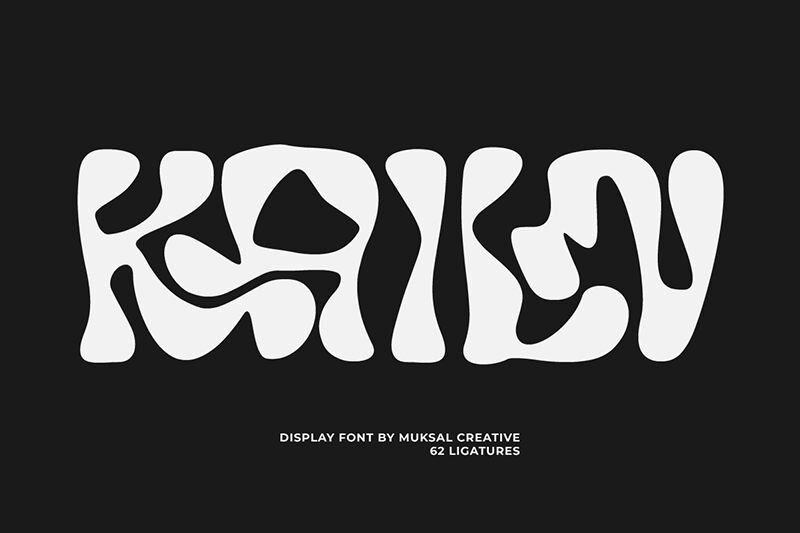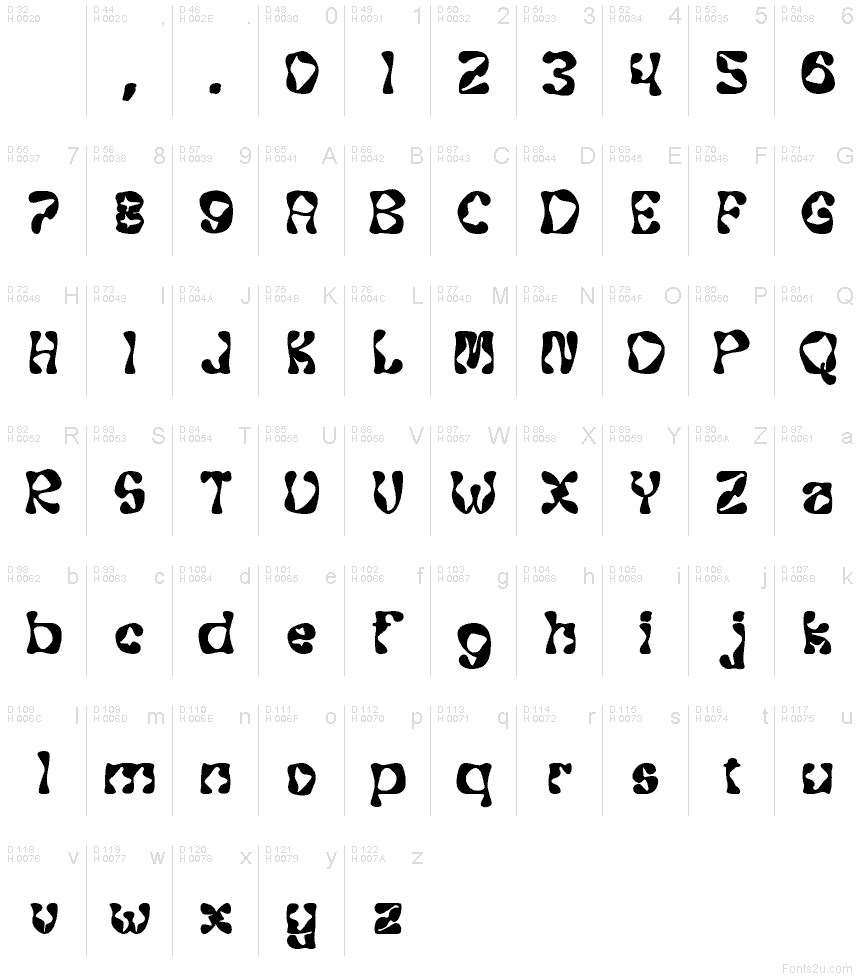
Kailn font by Muksal Creative is a free groovy display typeface that oozes liquid, psychedelic energy. Each letter looks like it’s melting into place, with chunky, inky curves and irregular silhouettes that feel hand-poured rather than drawn. The result is bold, organic word shapes that grab attention instantly and give your layout a hazy, vintage-party mood.
Using Kailn, headlines feel loud, playful, and a little trippy-great for posters, album covers, festival branding, merch, packaging, and bold social graphics. This free font works best at large sizes where its blobby contours can really breathe; pair it with a clean geometric sans for body text to keep the wildness grounded and readable.